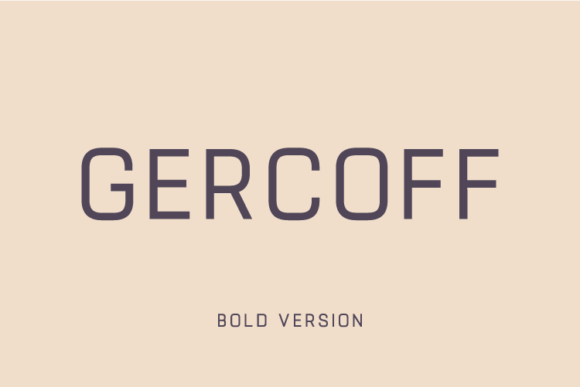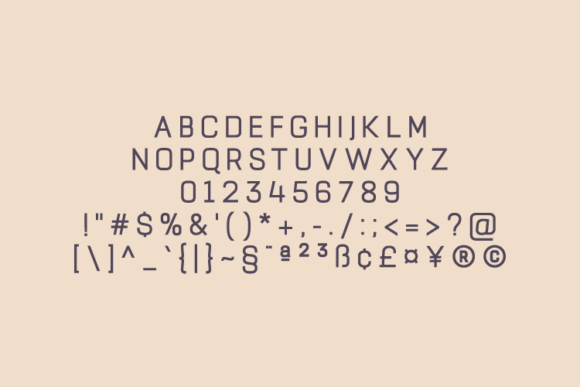
About Gercoff Bold Font
Gercoff is a clean and simple vintage sans serif font with smooth edges. Itβs perfect for vintage logo designs, headers and small amounts of text.